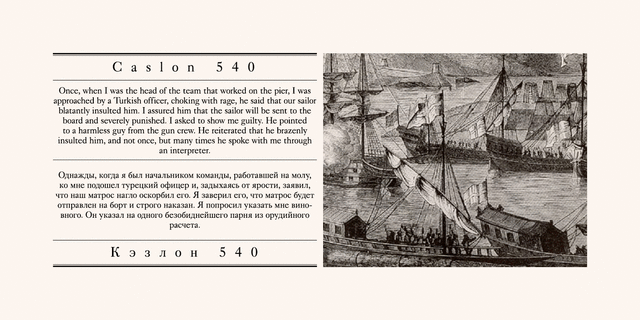
Caslon 540 (2 fonts)
About Caslon 540The Bitstream version of Caslon 540 of the American Type Founders, 1902. Based on William Caslon I's first English Old Style typefaces of 1725. Caslon modeled his designs based on late 17th century Dutch types, but his artistic skills enabled him to improve those models, bringing a variety of forms and subtlety of details. Strokes in Caslon fonts are somewhat heavier than in earlier Old Style fonts, serifs are thicker and a bit stubby. Italic letters have uneven slope. A text set in Caslon looks legible and aesthetically appealing. Caslon is a favorite font of English printers for setting of classical literature. Cyrillic version was developed for ParaType in 2002 by Isay Slutsker and Manvel Shmavonyan.
Associations for font family Caslon 540Typeface personality and character:
noble, conservative, traditional, classic, narrative, artistic, silver, educated, sharp, masterful, accurate, aristocratic, elite, correct, static, comme il faut, pretentious, historical, humanitarian, proud, gentlemanly, polite, elegant, mannered, beautiful, orderly, regardful, diligent, tactful, lyrical
library, art, museum, literature, aesthetics, prose, poetry, music, heraldry, tea, education, silver, comme il faut, detective, castle, concert, landscape, philosophy, ballet, painting Typeface associated with age: